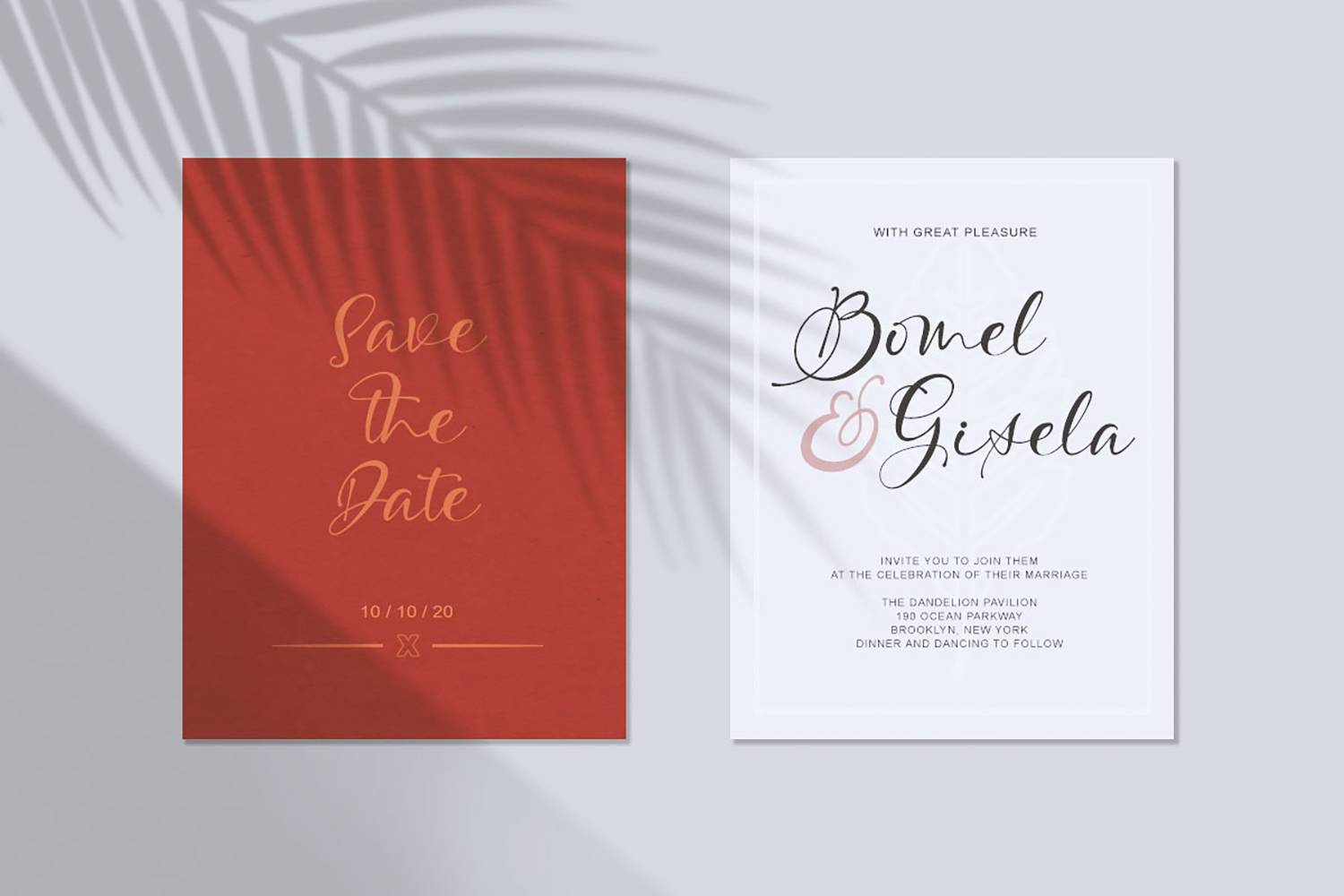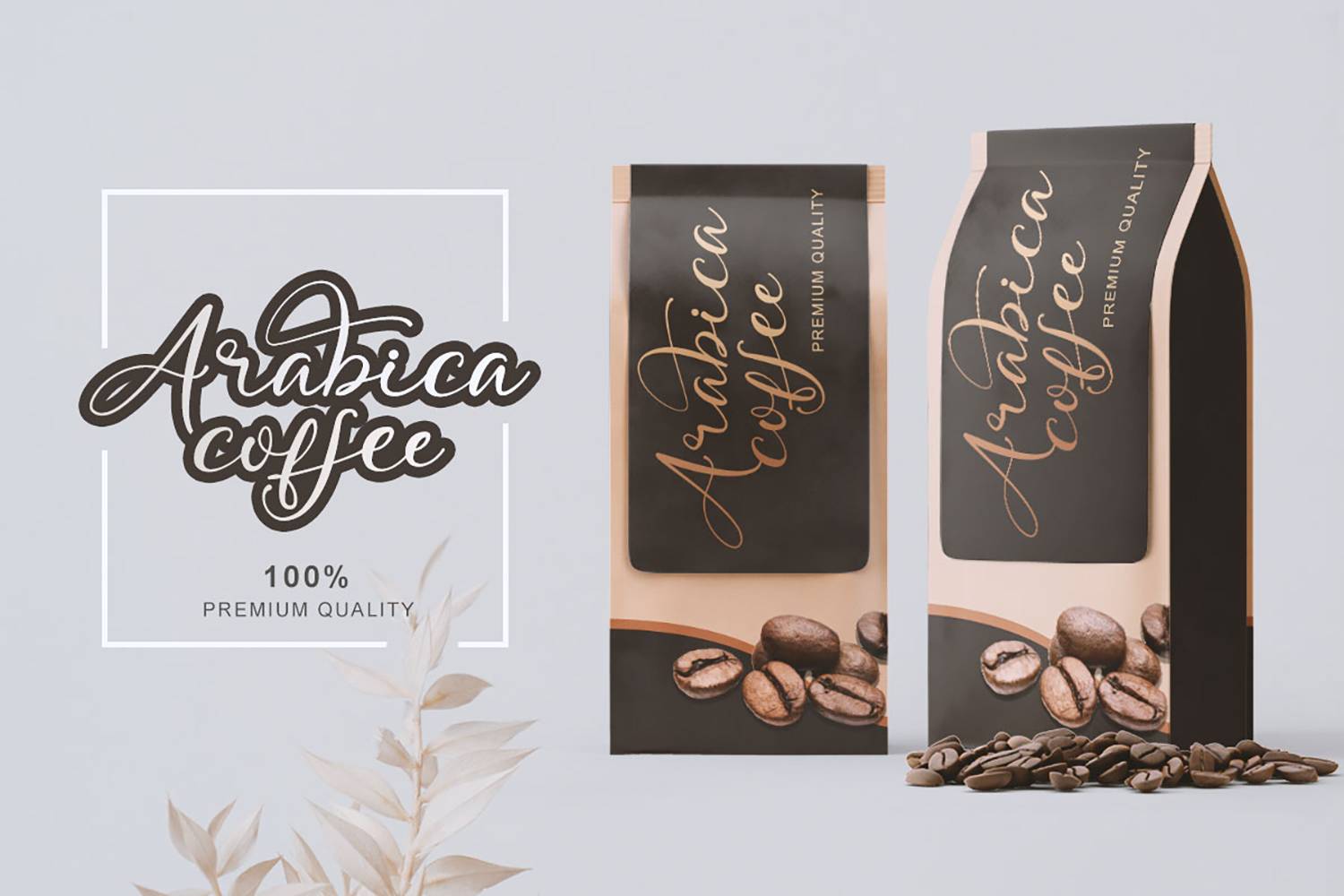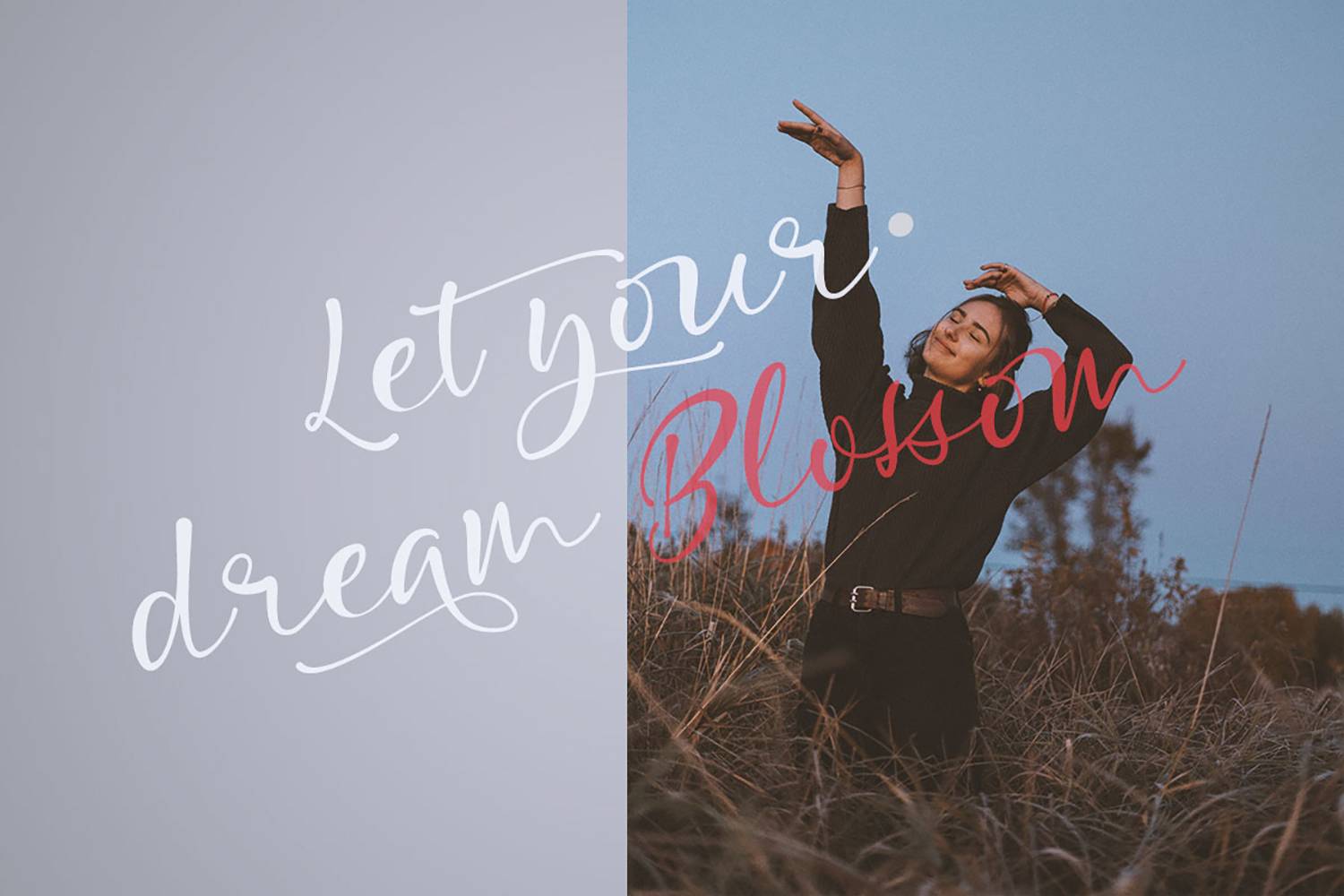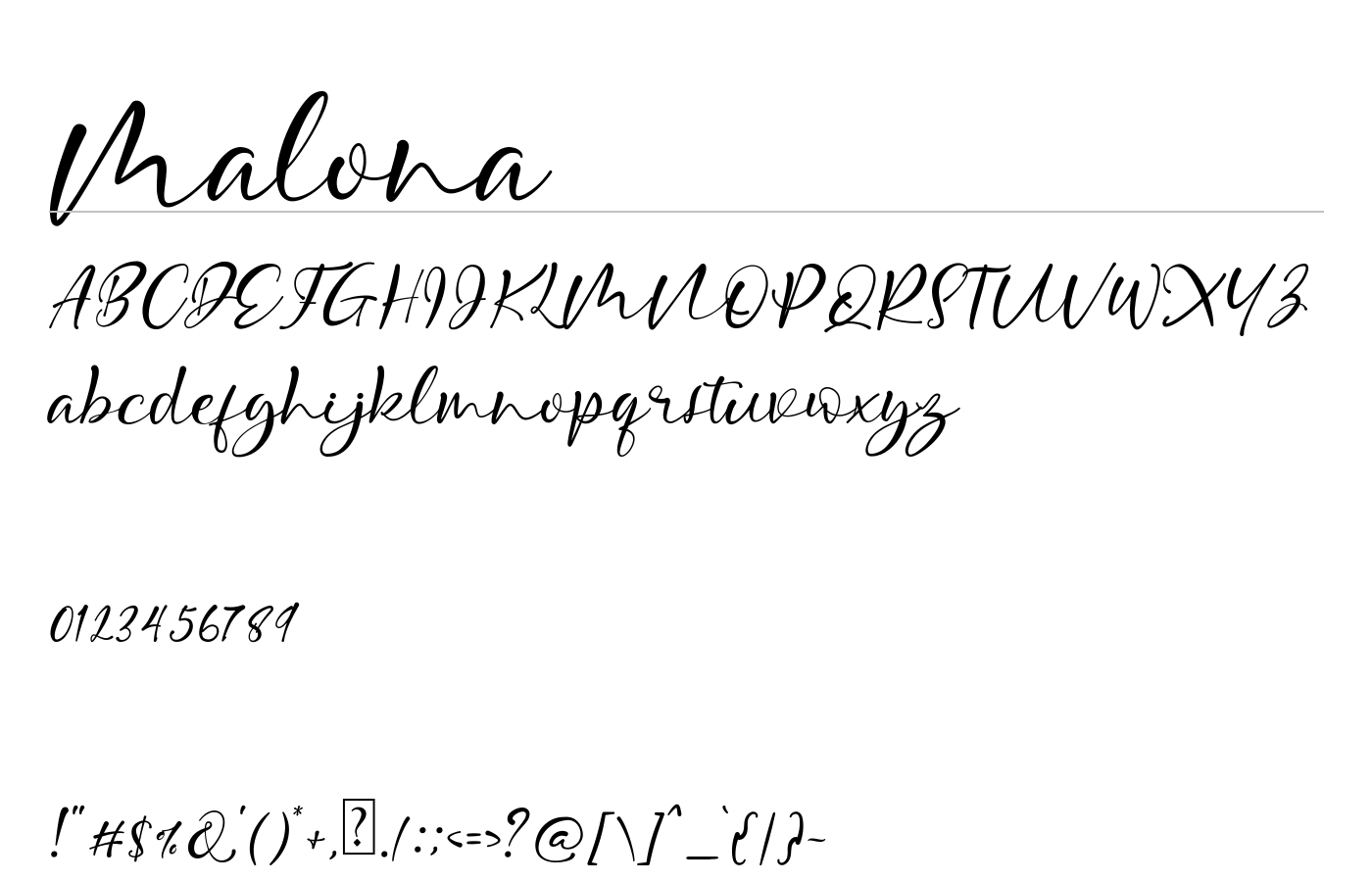
Malona is a delicate, handwritten script font with elegant, flowing strokes that convey a warm and personal touch. Its slender, slightly varied line weight and graceful letterforms make it ideal for creating sophisticated yet approachable designs such as invitations, branding, and feminine editorial projects. This font works beautifully where a sense of charm and individuality is desired, especially in headlines and logo design.
Malona Font
About Malona Font
| Font family | Malona Font |
| Designer | lemonthe_Dwi Ahidian |